In the fast-paced world of technology startups, a logo and brand identity must be strong, readable, and exude trustworthiness. The Sans Serif fonts is the top choice due to its clean, modern, and highly functional nature. To help you select the perfect typography, here are 7 of the best Sans Serif fonts from Authentype you can consider.
1. KOSHY – CLEAN, MODERN ELEGANCE
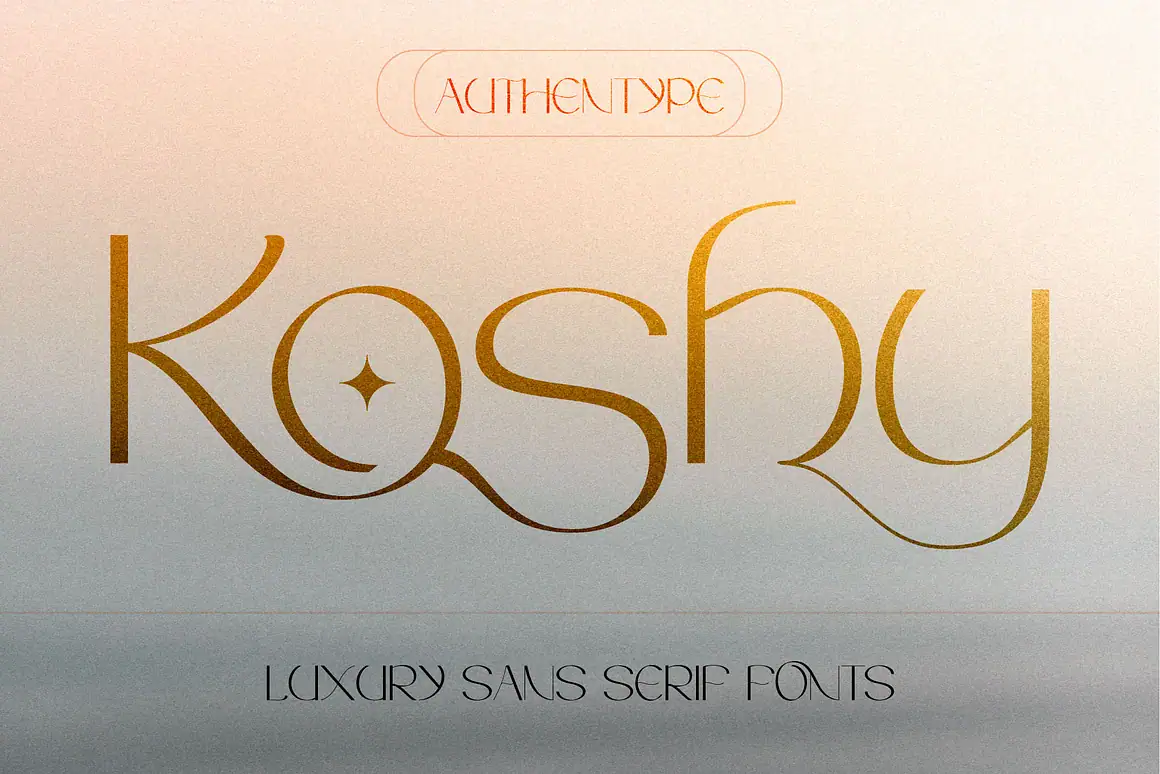
| Characteristics | Best Suited For |
| Clean, Elegant, High Legibility, Modern | UI Text, Digital Platforms, Long-form Content, and Elegant Branding. |
KOSHY was designed with a focus on elegance and high digital readability. Its clean structure and optimal x-height make it the perfect choice for minimalist tech platforms and extensive UI text where clarity is key. It sets a new standard for functional elegance.
2. WAHOG – CLEAN AND MODERN SANS SERIF FONT
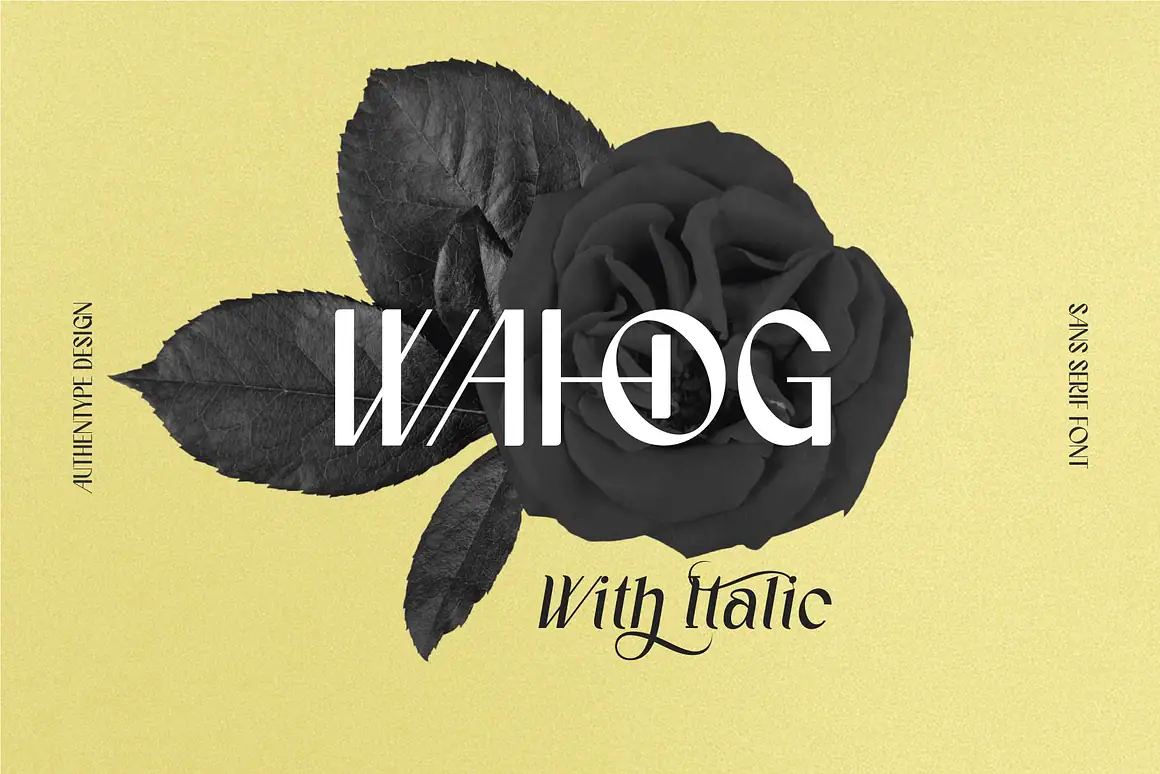
| Characteristics | Best Suited For |
| Geometric Foundation, Strong, Confident, Versatile | Headlines, Logos, Corporate Websites, and Strong Call-to-Actions. |
WAHOG features a strong geometric foundation, conveying professionalism and modern confidence. Its robust structure and multiple weights provide exceptional flexibility, ideal for startups needing both solid, impactful headlines and clean body text.
3. BELAJOR BEAUTIFUL SANS SERIF FONT
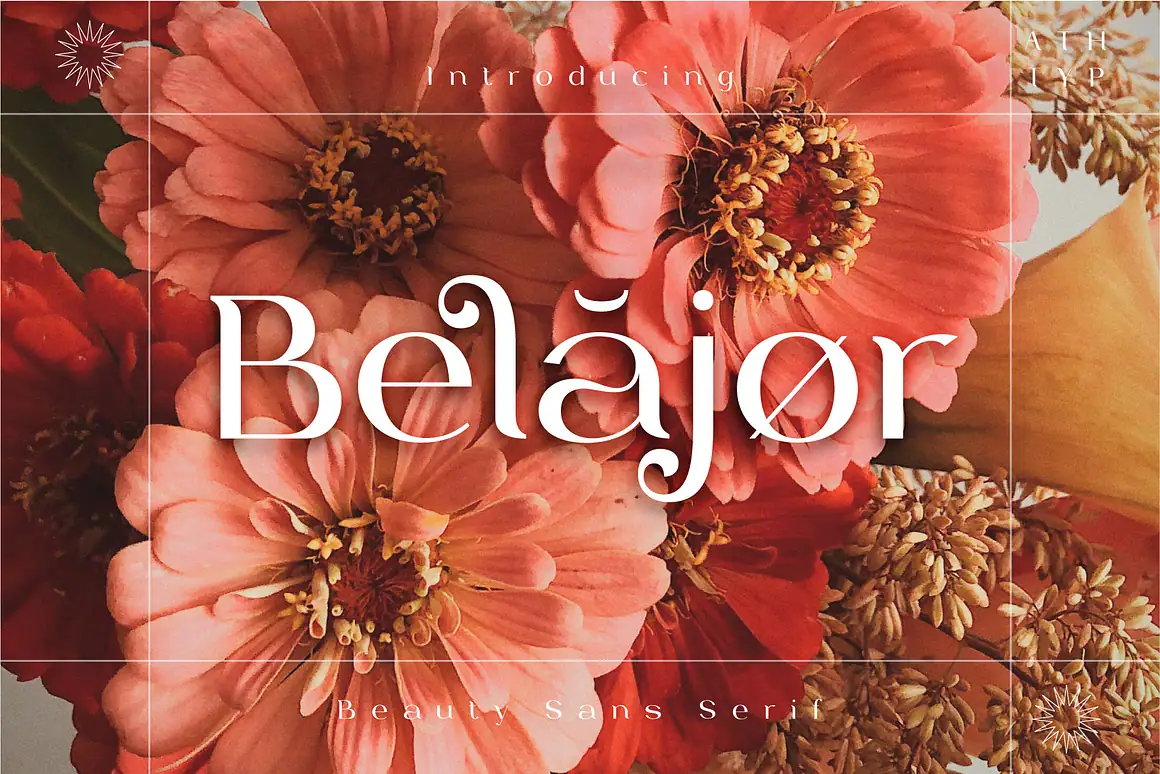
| Characteristics | Best Suited For |
| Aesthetic, Proportional, Engaging, Display Usage | Digital Branding, Social Media, Product Landing Pages, and Design that Emphasizes Beauty. |
BELAJOR is built on refined shapes, offering an aesthetic and engaging look. It’s perfect for digital branding and social media campaigns that need to emphasize visual beauty and an approachable feel.
4. DOLEGO BOLD RETRO DISPLAY FONT
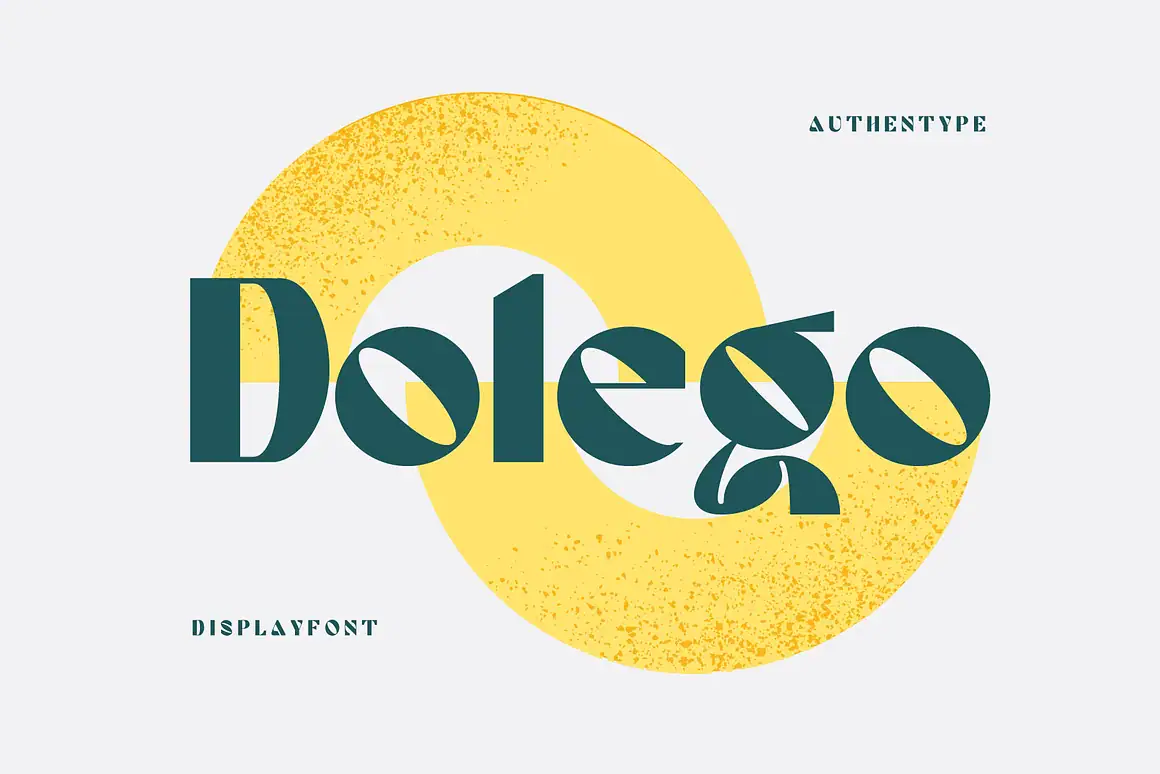
| Characteristics | Best Suited For |
| Bold, Retro Vibe, Statement-Making, High Impact | High-Impact Logos, Powerful Headlines, Brand Identity Seeking Uniqueness. |
Dolego’s bold retro display style is a distinct departure from typical corporate fonts. It is best used for high-impact logos and powerful, short headlines, giving your brand a nostalgic yet unique edge in the digital space.
5. CHEKOS – FEMININE TYPE FACE DESIGN
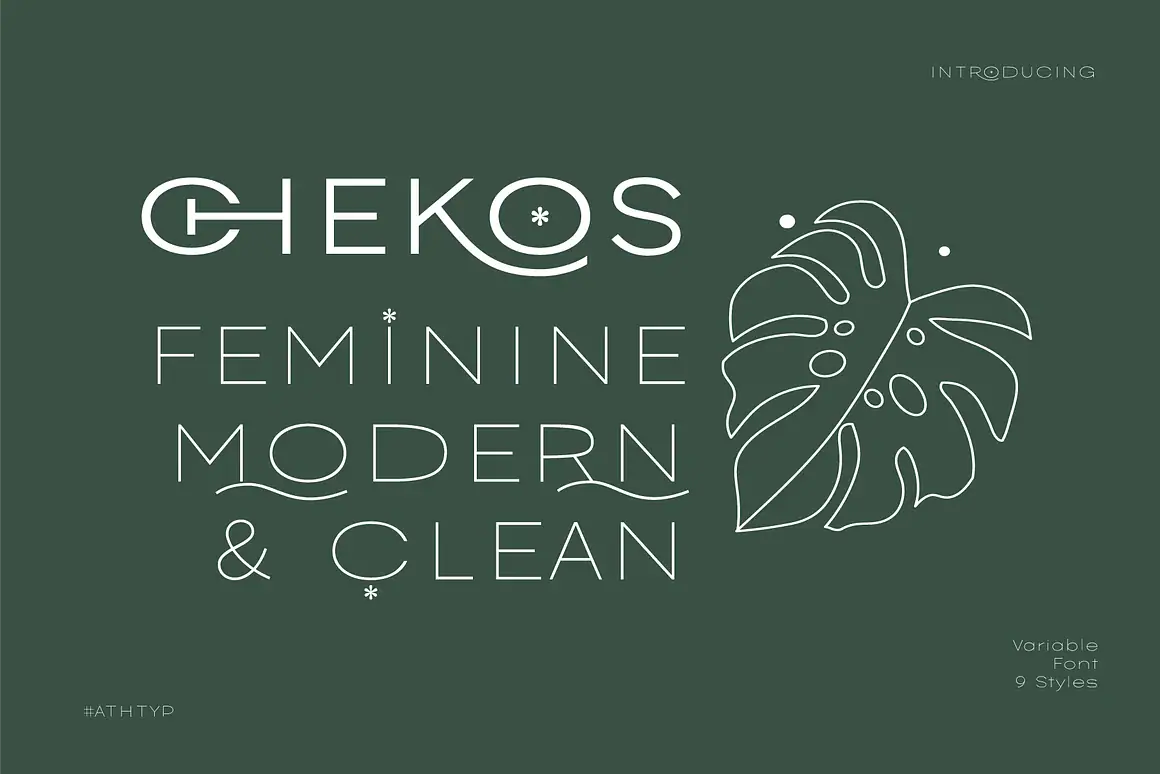
| Characteristics | Best Suited For |
| Sleek, Feminine Touch, Soft Professionalism, Clean Lines | Wellness Tech, Fashion-Tech, B2C Services, and Sophisticated Communications. |
CHEKOS brings sleekness with a feminine touch to the B2B or B2C sphere. This font provides a softer, more humanistic authority, making it perfect for tech products in wellness, fashion-tech, or any service valuing sophistication and approachability.
6. QONOHA A SIMPLE ELEGANT FONT
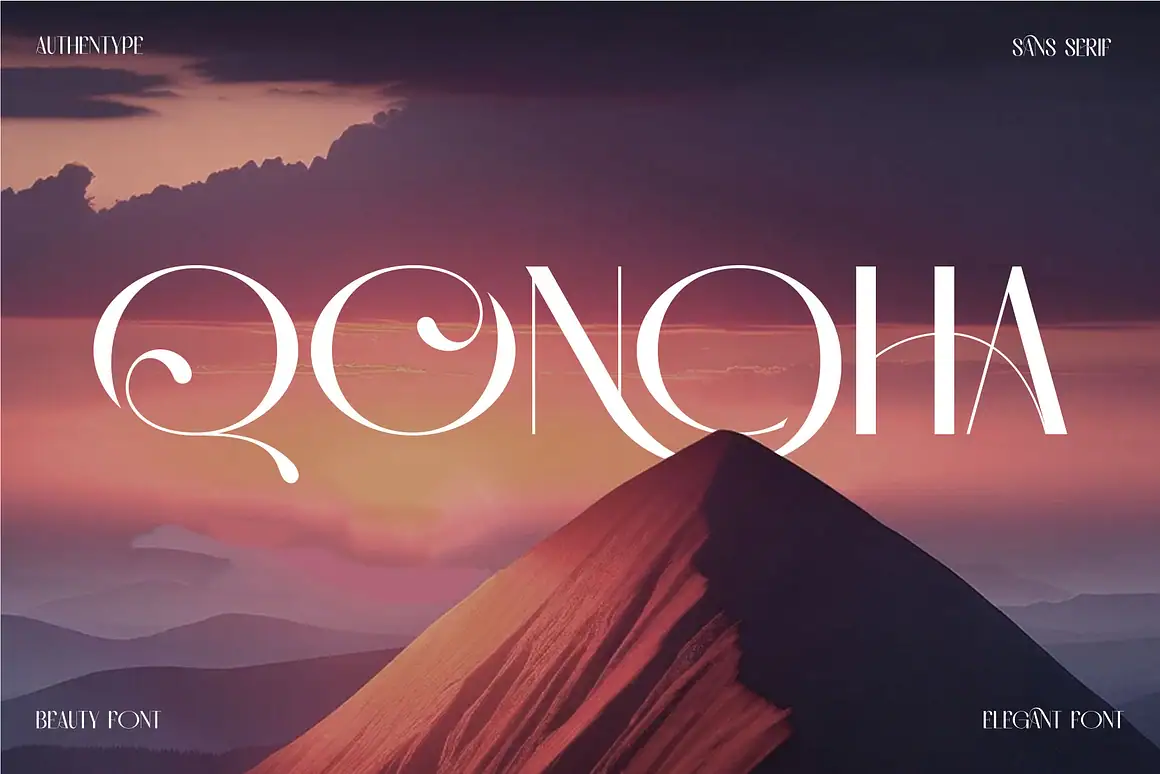
| Characteristics | Best Suited For |
| Simple, Elegant, Unique Character, Minimalist Branding | Exclusive Designs, Minimalist Branding, Main Titles, and Understated Luxury. |
QONOHA achieves elegance through simplicity and refined form. It’s ideal for minimalist branding and exclusive designs, allowing your headlines and taglines to stand out with understated grace.
7. GOOD ROME – THE FUTURE OF SANS SERIF
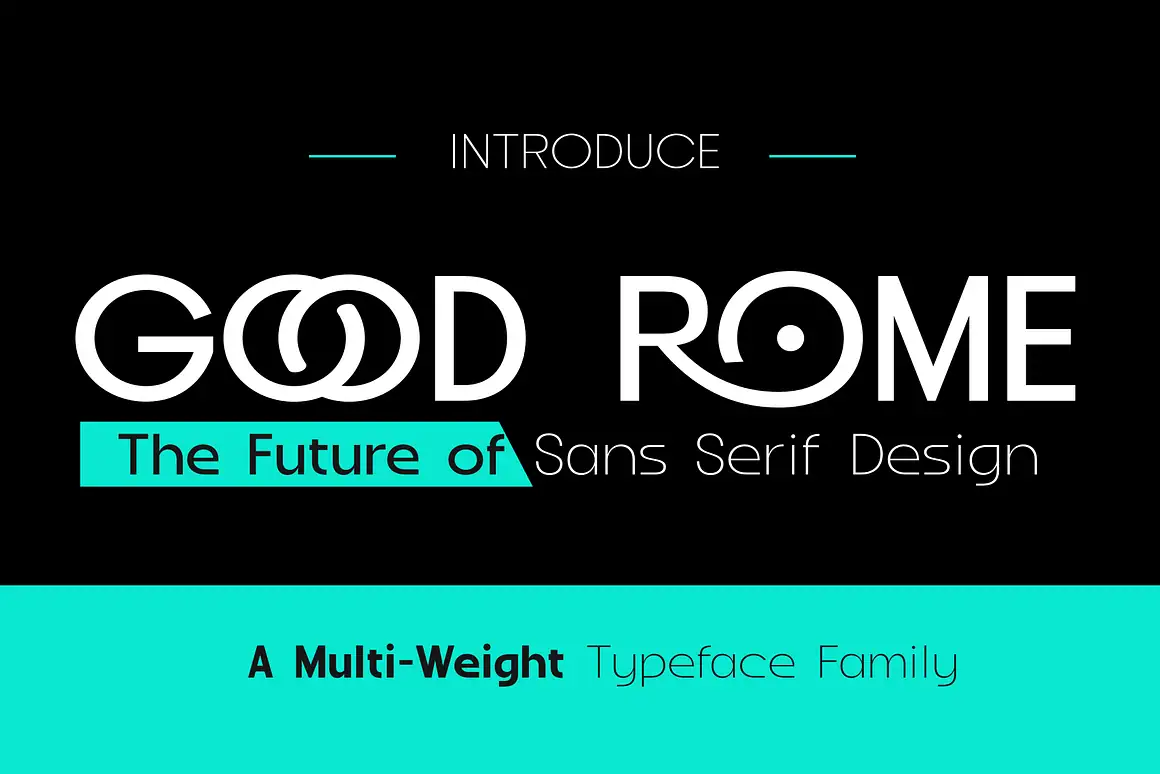
| Characteristics | Best Suited For |
| Futuristic, Highly Optimized, Responsive Design, Clean | Mobile Applications, UI/UX Design, and Forward-Looking Tech Brands. |
GOOD ROME truly embodies the future of Sans Serif. This font is highly optimized for responsive and mobile environments, offering maximum clarity and a forward-looking aesthetic essential for modern application design.
Conclusion & Next Steps